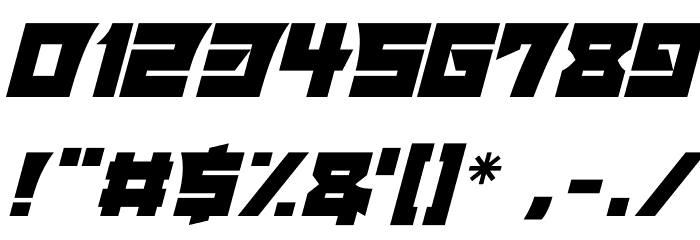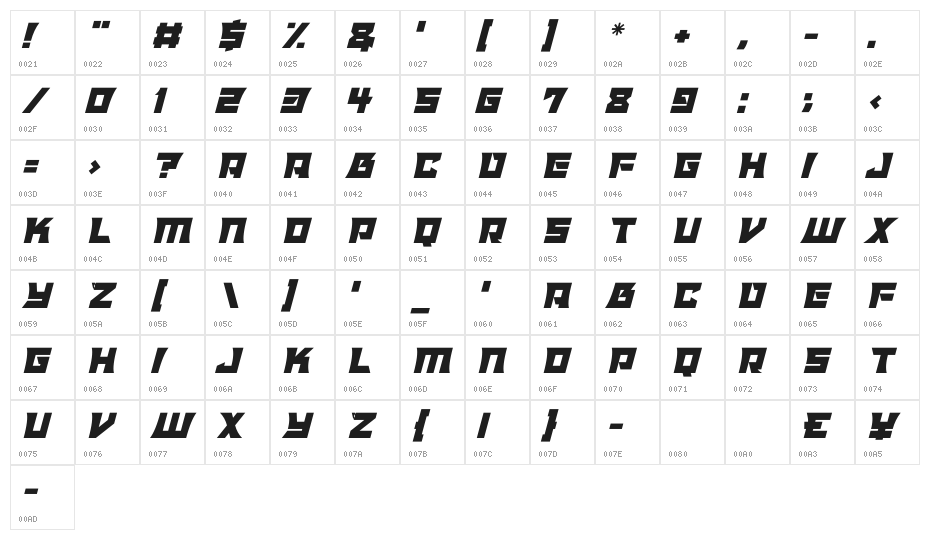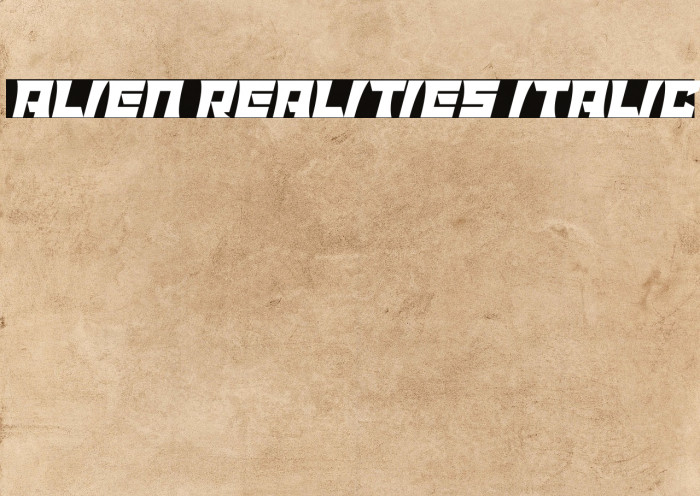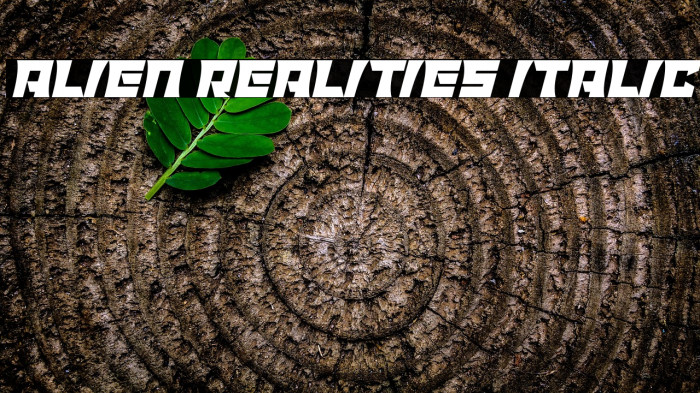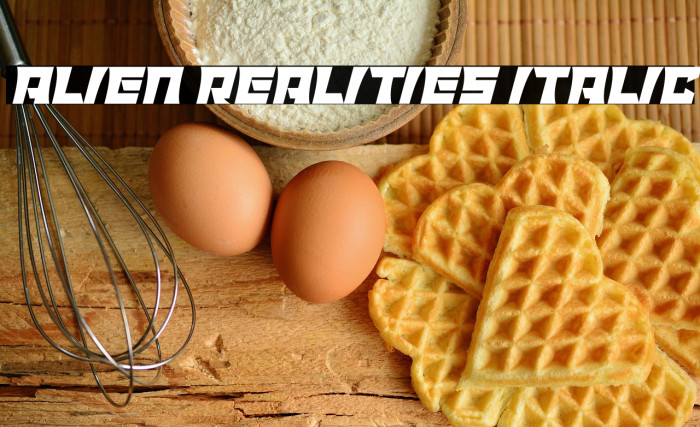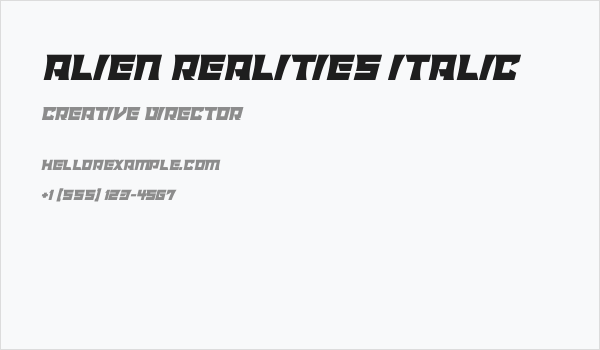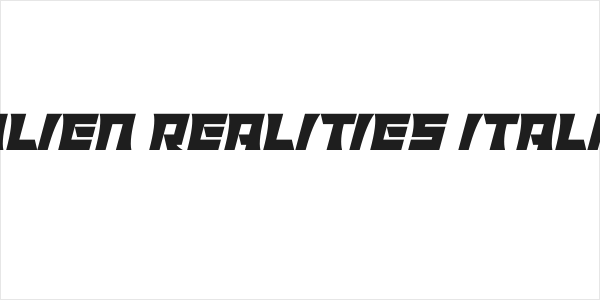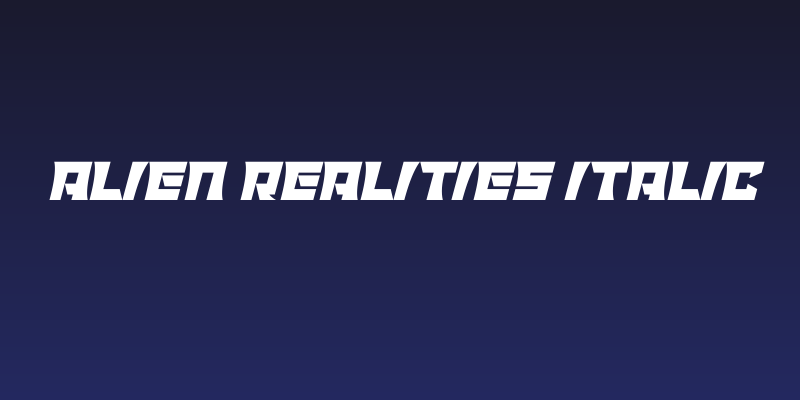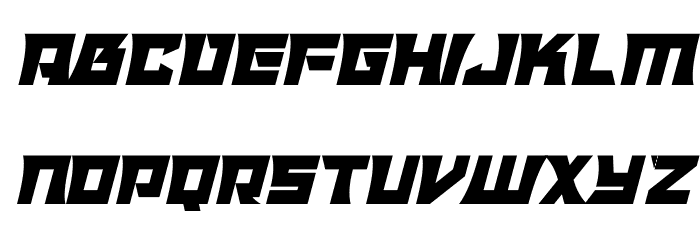
Alien Realities Italic Font
Alien Realities Italic Description
This font features a bold, futuristic design with sharp, angular lines and a distinct italic slant. The characters are wide and have a strong presence, making them ideal for attention-grabbing headlines or titles. The uppercase and lowercase letters maintain a consistent style, with unique geometric shapes that give the font a modern and edgy appearance. The numerals and special characters are equally bold and stylized, ensuring uniformity across all text elements. The font's design is reminiscent of science fiction themes, making it suitable for projects that require a contemporary and dynamic look.
| Proposed Projects | Ideal for sci-fi themed posters, video game titles, technology branding, and futuristic event flyers. |